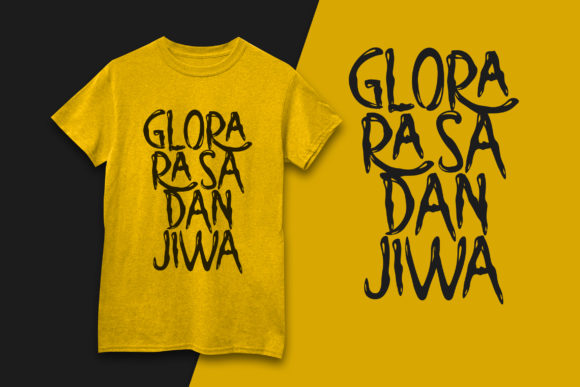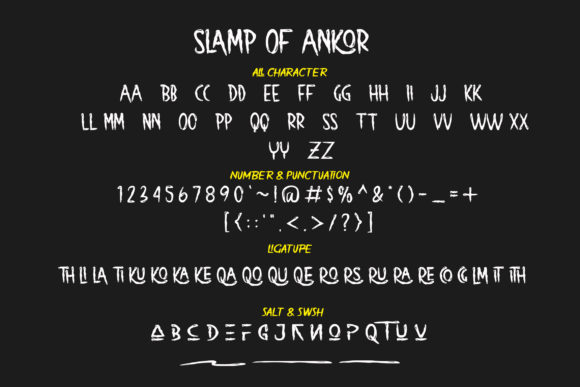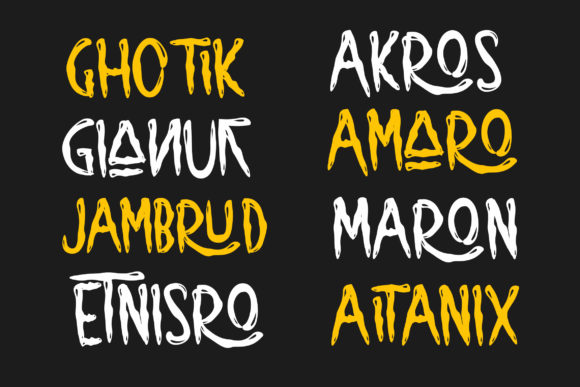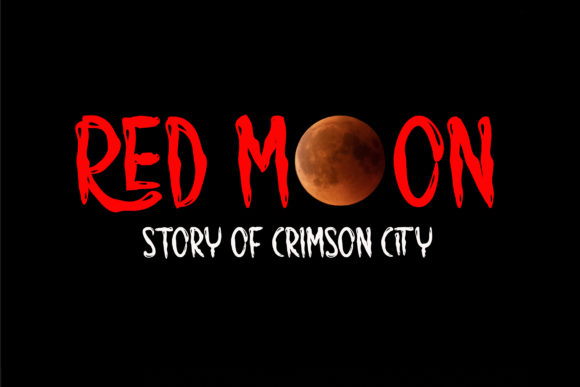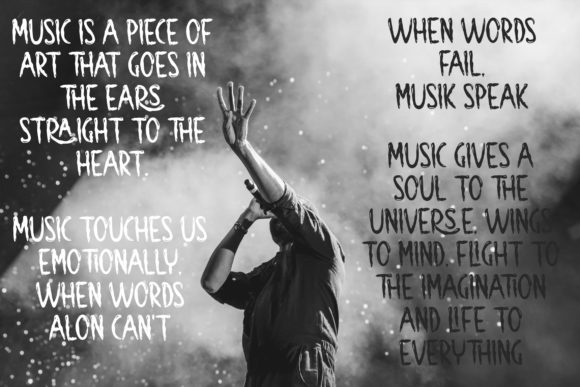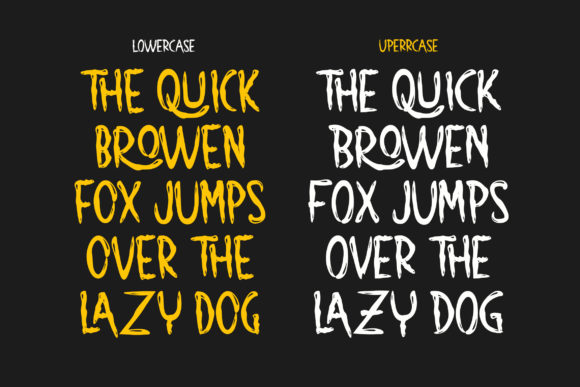
Introduction to Slamp of Ankor Font
Slamp of Ankor is a great display font.
It has a unique personality and itโs perfect for logos, quotes, t-shirts, posters, flyers and much more .
Key Features of Slamp of Ankor Font
Why Choose Slamp of Ankor Font?
Slamp of Ankor Font offers exceptional quality and versatility, making it a valuable addition to your design toolkit. Whether you’re creating for personal projects or commercial use, Slamp of Ankor Font delivers professional results.